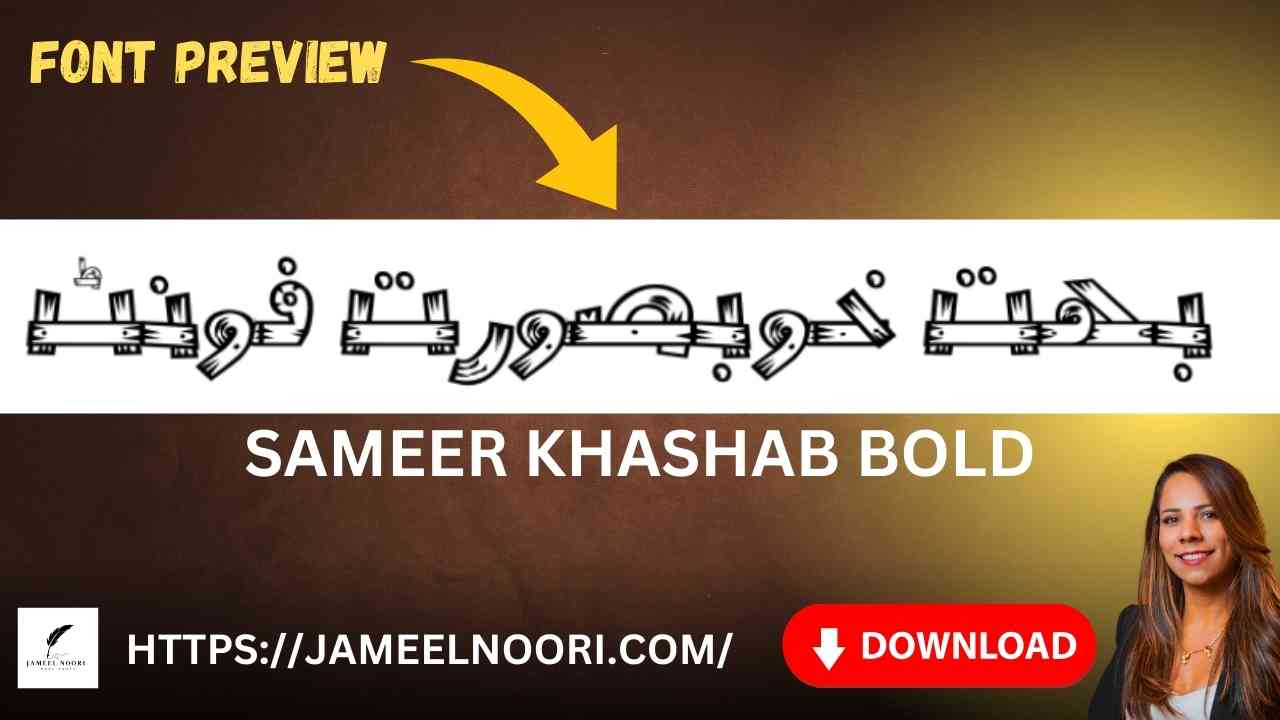
Sameer Khashab Bold Urdu Fonts download by Jameel Noori – Elegant,Bold and Readable
The Sameer Khashab Bold Urdu Font by Jameel Noori is one of the most popular Urdu fonts in Pakistan.. Known for its bold and elegant styling,, it enhances readability and creates a professional look for documents,, websites,, and business materials. Downloaded more than 77,742 times, this font has gained a strong reputation for its high quality and aesthetic value.
This font is a perfect choice for all kinds of Urdu design projects,, from website banners to printed magazines..
Why Urdu Fonts Like Sameer Khashab Bold Are Important
Maintaining Language Identity
Urdu fonts like Sameer Khashab Bold preserve the cultural and linguistic identity of millions of Urdu-speaking people.. Without fonts tailored to our language,, it would be difficult to maintain the beauty and structure of Urdu script online..
Enhancing Content Presentation
Using an elegant and bold font adds immense value to the content you create.. It not only improves readability but also helps you attract your target audience more effectively..
Business and Educational Use
From professional business documents to educational posters and Islamic content,, a clear and attractive Urdu font is crucial for effective communication..
The Future of Urdu Fonts in Digital World
With the rising demand for regional content,, Urdu fonts will play a critical role in:
- Urdu news websites and online magazines
- Urdu social media promotions
- Online Islamic education platforms
- Digital Urdu novels and poetry books
- E-commerce websites targeting Pakistani audiences
Fonts like Sameer Khashab Bold Urdu Font by Jameel Noori are essential for creating impactful and accessible digital content in Urdu..
Is this a Unicode Urdu font?
No, Sameer Khashab Bold is a non-Unicode Urdu font,, but it works perfectly for most design projects.
The Sameer Khashab Bold Urdu Font by Jameel Noori offers elegance,, readability,, and professional styling for your Urdu content.. Whether you are a designer, blogger, teacher, or business owner,, using a clear and attractive Urdu font can dramatically improve your audience engagement.